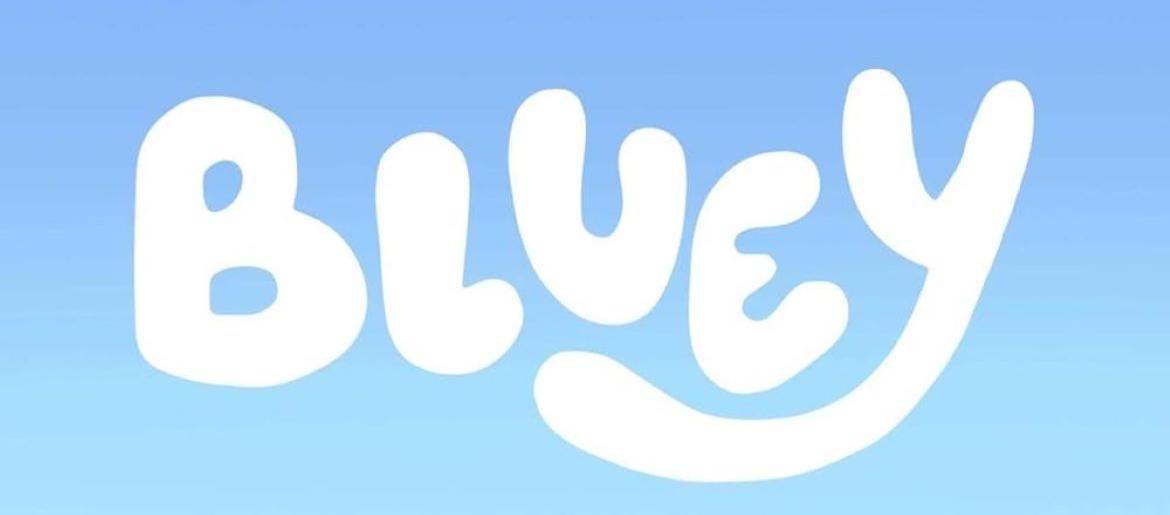
Bluey Font
The Bluey font brings the cheerful, playful spirit of the beloved children’s series Bluey to life. Its soft, rounded lettering and bright, friendly style make it perfect for kid-friendly projects, party invitations, educational materials, or any design that needs a joyful and welcoming touch. The font reflects creativity, imagination, and family-friendly vibes, adding instant happiness and excitement to any design.
About Bluey
Bluey is an Australian animated TV series that premiered in 2018. The show follows Bluey, an energetic Blue Heeler puppy, and her family as they embark on fun adventures that celebrate play, creativity, and everyday life lessons in a heartwarming way.